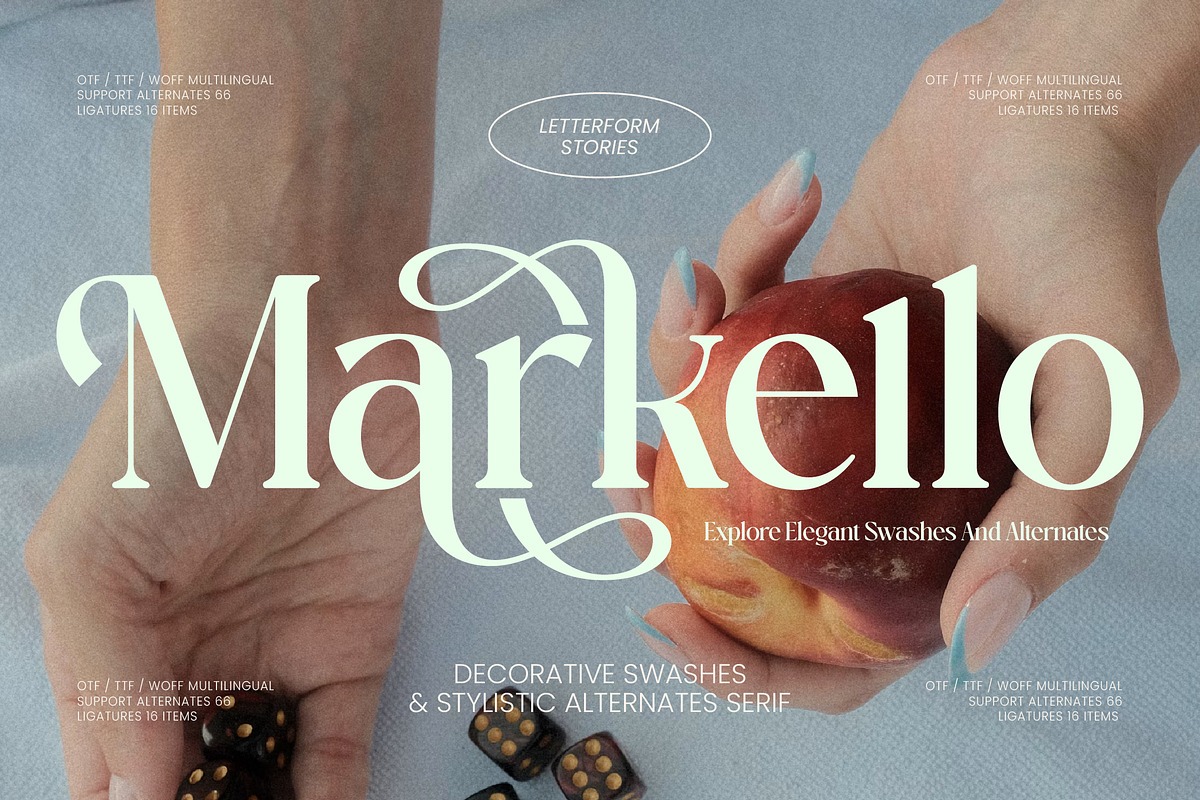
Markello – Elegant Serif Font
Markello – Elegant Serif Font is a decorative serif typeface designed with elegant swashes, refined contrast, and expressive stylistic alternates that bring sophistication and personality to every composition. Blending timeless serif elegance with contemporary editorial aesthetics, Markello delivers a luxurious visual presence perfect for high-end branding and statement typography.